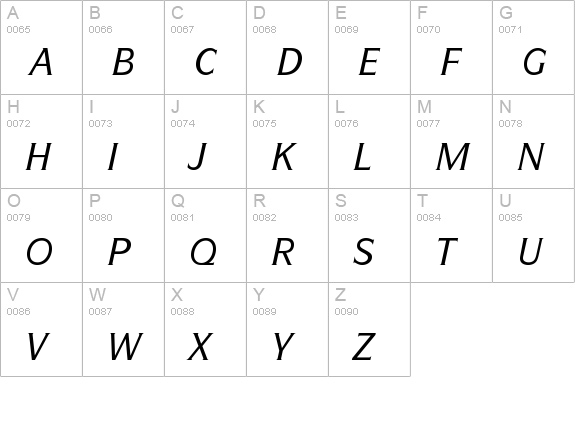
SymbolEF-MediumItalic is a sleek and elegant font that combines modernity with a touch of sophistication. Its italic style adds a dynamic and refined look to any text, making it perfect for branding, editorial design, and more. The flowing curves and precise lines of SymbolEF-MediumItalic create a harmonious balance that draws the eye and conveys a sense of style and professionalism. The best part? SymbolEF-MediumItalic is available for free download at FontsMarket.com, making it easily accessible for designers and creatives looking to add a unique and versatile font to their collection. Whether you're working on a logo, a website, or a print project, SymbolEF-MediumItalic is sure to elevate your design with its distinctive flair and timeless appeal. Download it today and unleash your creativity with this exceptional typeface.